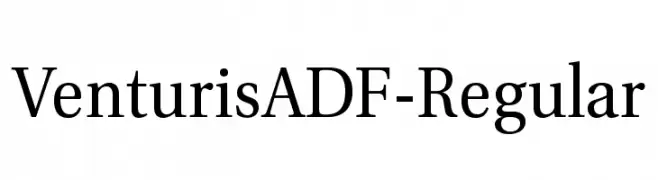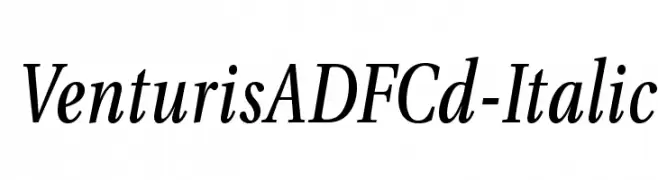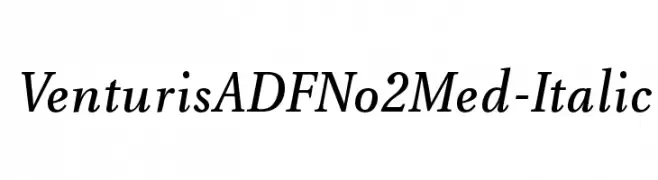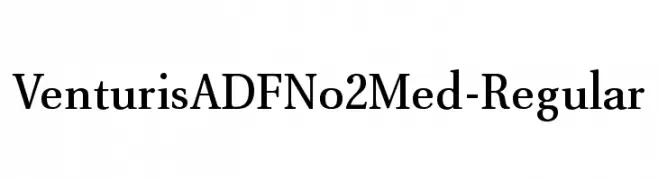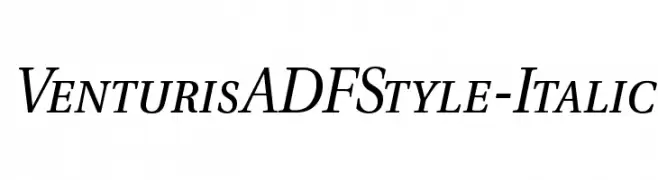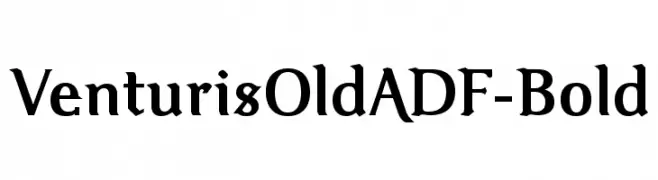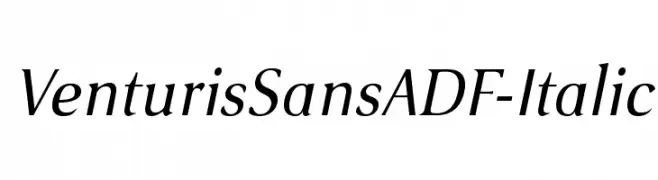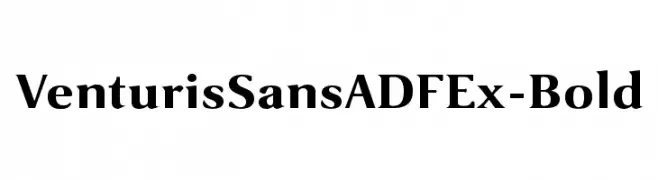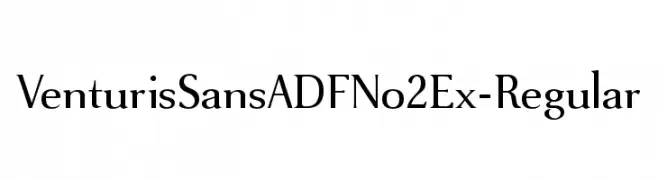
An elegant serif font with a classic italic style and refined appearance.
A classic serif typeface with balanced proportions and medium weight.
An elegant italic font with smooth curves and moderate contrast.
A classic italic serif typeface with elegant curves and a refined appearance.
An elegant serif font with a classic italic style, perfect for formal use.
A classic serif font with elegant, balanced letterforms and pronounced serifs.
A refined serif typeface with balanced proportions and classic elegance.
A bold, classic serif font with elegant curves and flared serifs.
A classic serif font with elegant strokes and balanced proportions.
A bold serif typeface with high contrast and strong, classic serifs.